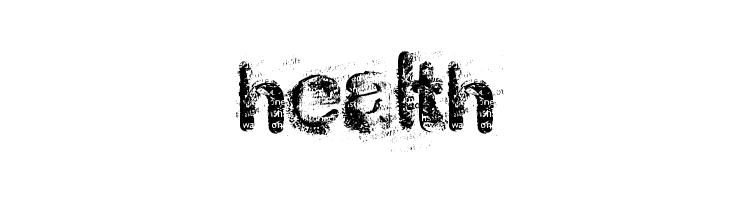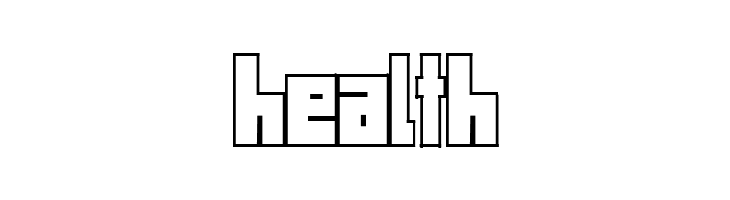
• stnovasans
A modern, geometric font with rounded, uniform characters.
• StoneAgeBatsBold
A bold, decorative font with abstract symbols in rounded squares, inspired by ancient carvings.
• stoned wash
• stoned wash 6
A rugged, distressed font with a stone-washed, textured appearance.
• StonesAgeButtons
Animal and nature pictogram font in circular buttons, inspired by prehistoric art.
• Stony Island NF
A bold, modern font with tall, narrow characters and high contrast.
• Stony Island NF Bold
• StonyIslandNF-Bold
A bold, decorative font with geometric and organic elements, perfect for impactful designs.
• Street Block